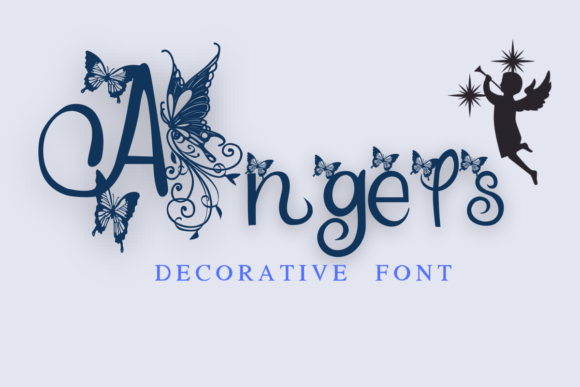
Meet Angels Font, a stunning organic decorative font that’s about to become your new best friend. With its beautiful ornaments and elegant lines, this font is the ultimate game-changer for any design project. Whether you’re working on a wedding invitation, a children’s book, or a marketing campaign, Angels Font has the power to elevate your creations and leave a lasting impression.
As a designer, you know that the right font can make all the difference. That’s why Angels Font is an invaluable addition to any font library. Its versatility and beauty make it an ideal choice for designers of all levels, and its potential to elevate any project is simply unmatched.
Angels Font Key Features
- Font Family: Angels Font is a modern, elegant font designed for various applications.
- Unique Characteristics: Angels Font features a unique blend of classic and modern elements, making it suitable for various design projects, including logos, titles, and body text.
Angels Font Review
I recently had the chance to work with the Angels Font, and I must say it’s a beautiful and elegant script font. ✨ It’s perfect for adding a touch of sophistication to any design project, especially those that require a feminine or vintage feel. The font is highly customizable, and it looks stunning in both uppercase and lowercase letters.
One of the things that I appreciate about Angels Font is its versatility. ✨ It can be used for a wide range of applications, from wedding invitations to packaging design. The font is also highly legible, making it easy to read even in smaller sizes.
What Doesn’t Work So Well
While Angels Font is a great addition to any design library, there are a few limitations that I’d like to point out. ⚠️ For one, the font can be quite dense, which can make it difficult to read in certain situations. Additionally, the font may not be suitable for use in very small sizes or in situations where a clear and concise message is crucial.
- The font can be quite dense, making it difficult to read in certain situations.
- The font may not be suitable for use in very small sizes or in situations where a clear and concise message is crucial.
- The font may not be as effective in bold or italic styles.
Overall, I’m quite impressed with the Angels Font. ✨ It’s a beautiful and elegant script font that’s perfect for adding a touch of sophistication to any design project. While it may have a few limitations, it’s a great addition to any design library, and I would definitely recommend it to anyone looking for a high-quality script font.
Getting the Most Out of Angels Font
To get the most out of the Angels Font, use it for:
– Whimsical and magical designs
– Children’s book illustrations
– Wedding invitations and decorations
– Any design that requires a touch of elegance and sophistication.